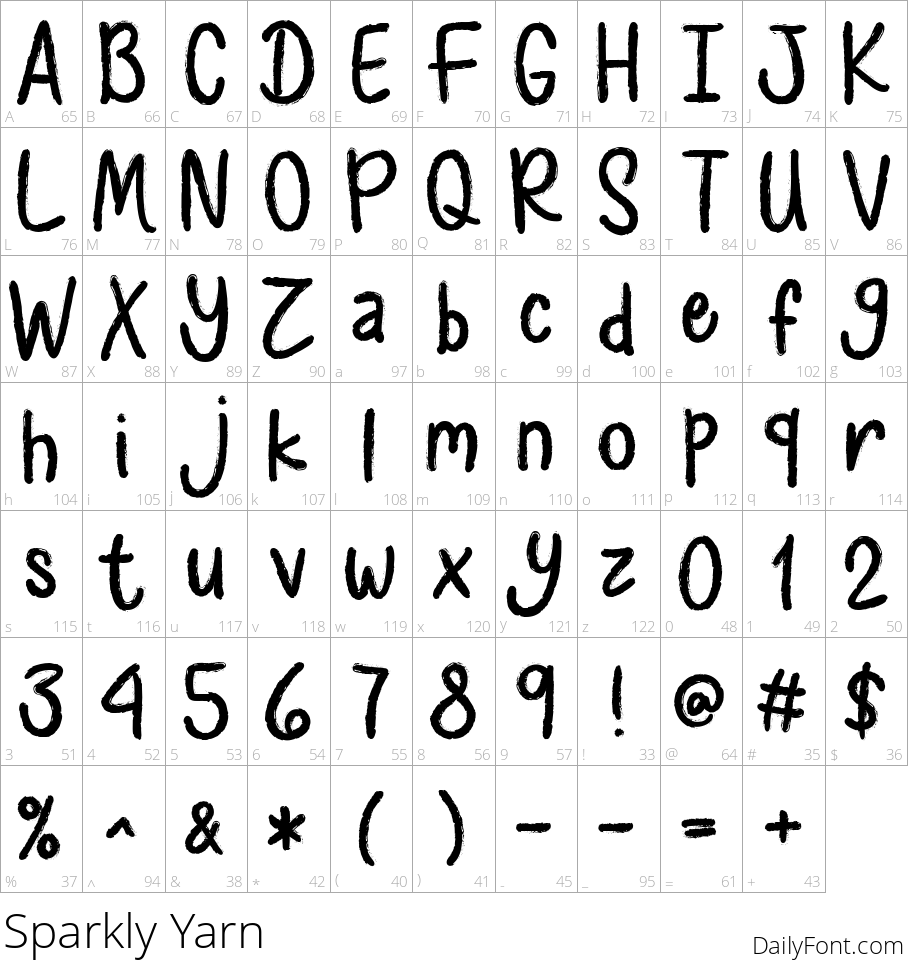
Sparkly Yarn
Sparkly Yarn is a delightful handwritten chalk-styled font that brings whimsy to your projects. Its textured strokes and playful letterforms give invitations, posters, and craft tags a warm, hand-drawn feel. Ideal for branding that desires a friendly, approachable vibe, Sparkly Yarn adds personality without sacrificing readability. Use it for chalkboard menus, event signage, kids' crafts, or creative social media graphics to create instant charm. This unique font pairs beautifully with clean sans and elegant scripts, ensuring your message shines.
Designed with versatility in mind, Sparkly Yarn excels in posters, invitations, greeting cards, quotes, and DIY crafts. It maintains legibility at various sizes while preserving a playful texture that draws attention in headlines and callouts. Use it for school projects, home decor, or brand campaigns that want a friendly, handmade touch. Pro tip: combine Sparkly Yarn with bold type for contrast or with light script for soft, whimsical accents.